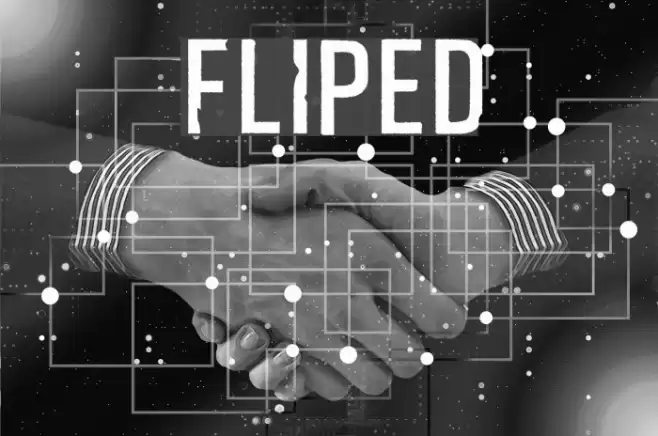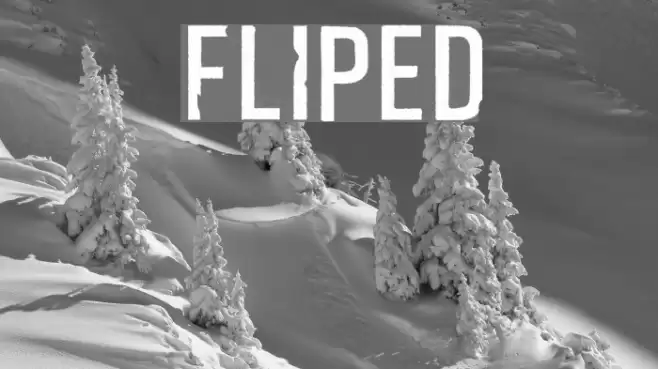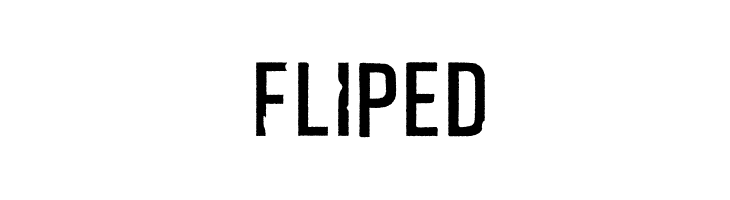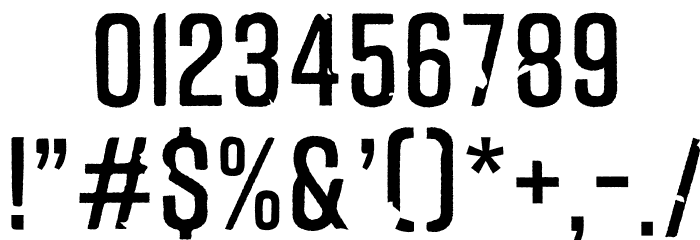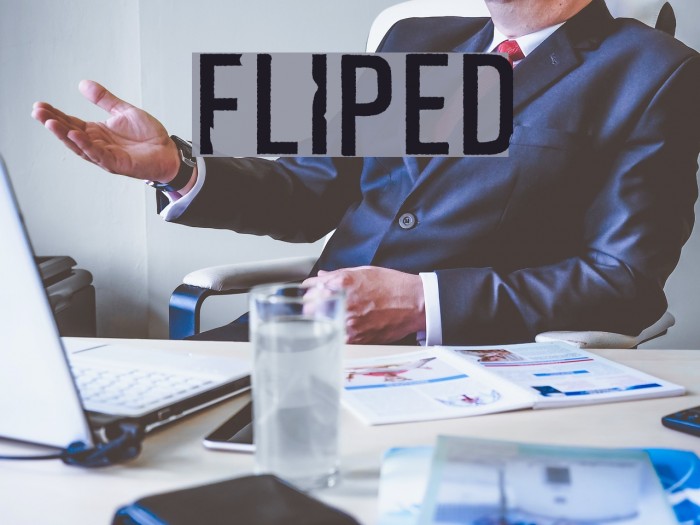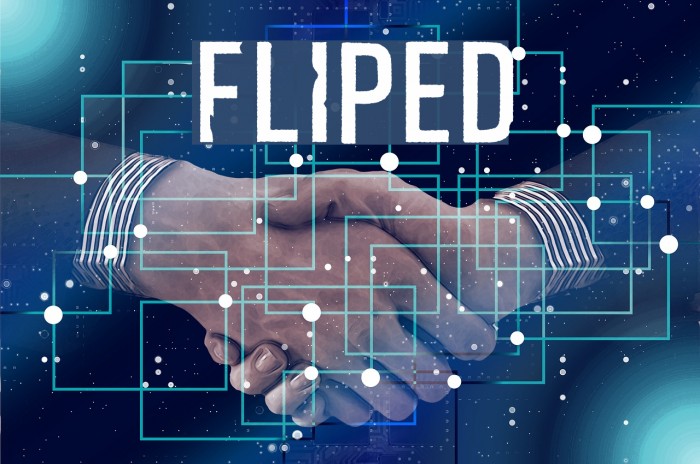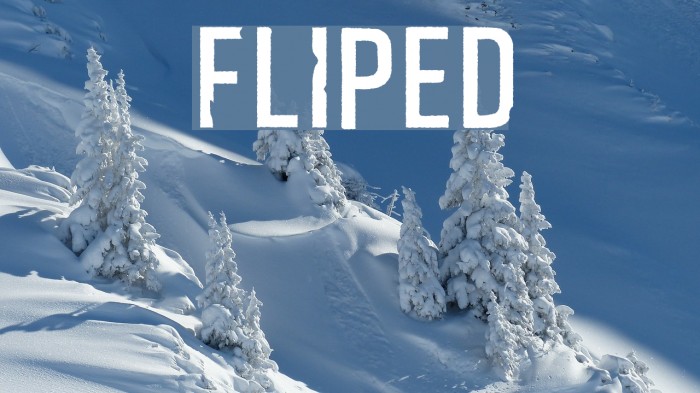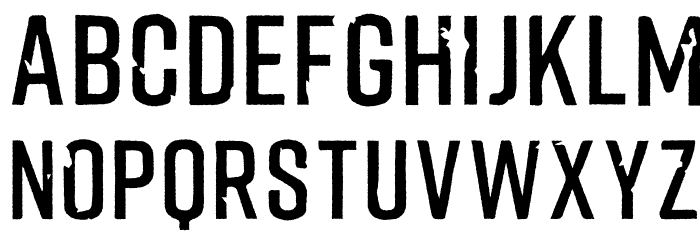
Fliped Font
Fliped Description
This font features a bold, industrial style with a distressed, stencil-like appearance. The characters are uppercase and have a rugged, worn texture that gives them a vintage, utilitarian feel. The letters are evenly spaced with a consistent width, creating a uniform look. The numbers and special characters follow the same design, maintaining the distressed aesthetic. This font is ideal for projects that require a strong, impactful presence with a touch of nostalgia.
A bold, distressed stencil font with an industrial, vintage feel from Uncategorized fonts.
- Proposed Projects: Ideal for posters, signage, branding, and any design needing a rugged, industrial touch.
- Overall Style: Vintage